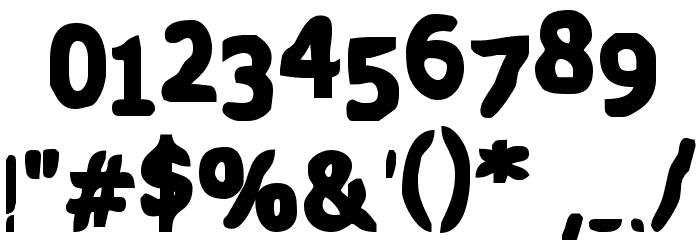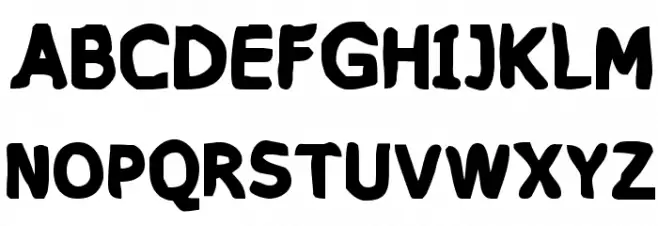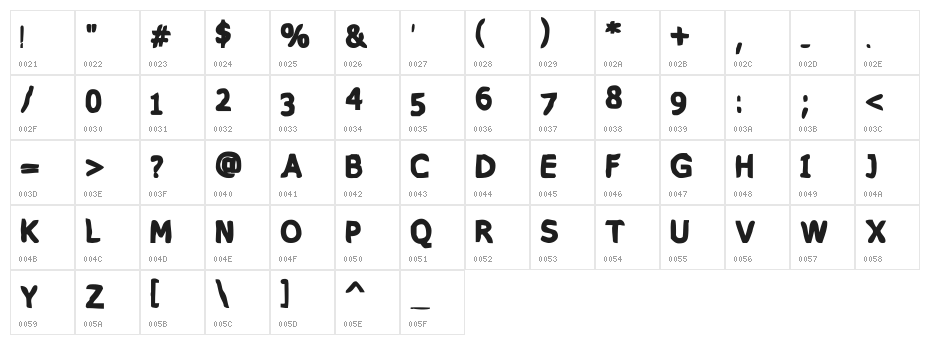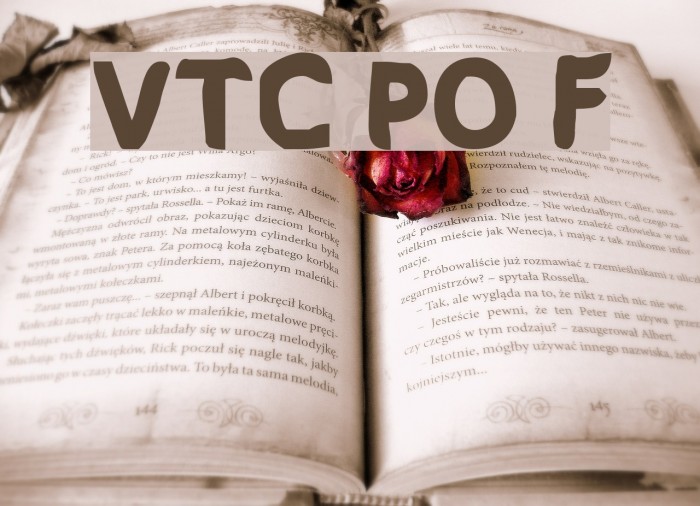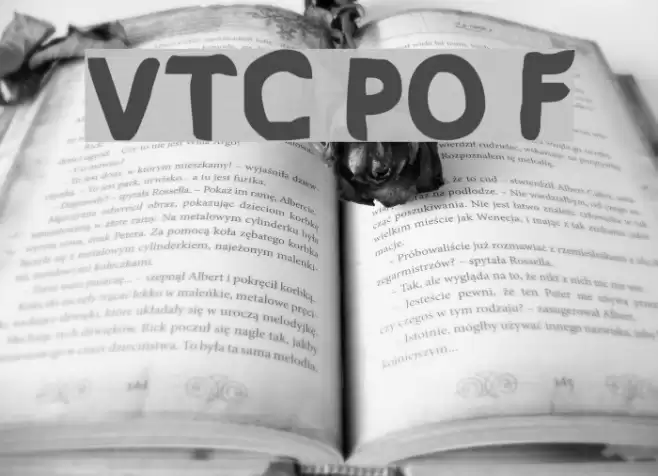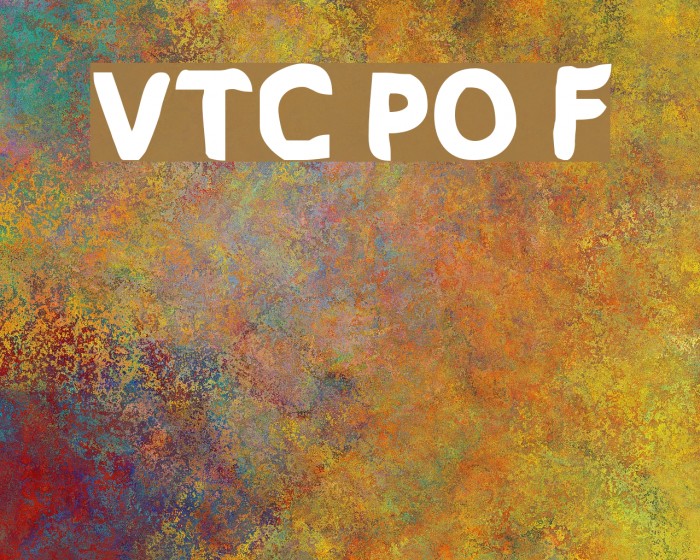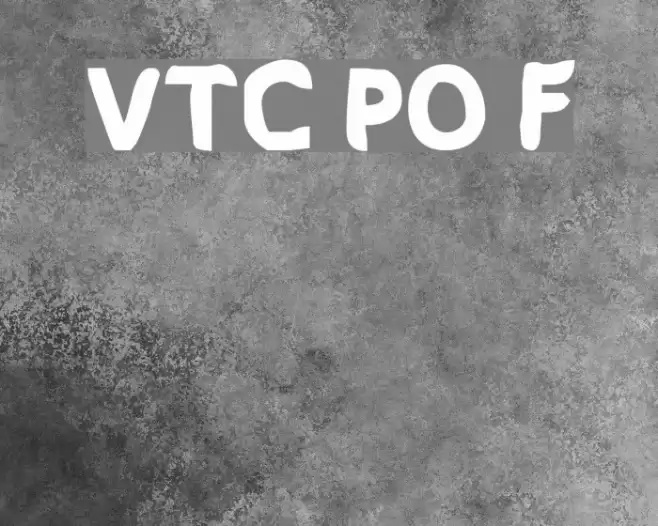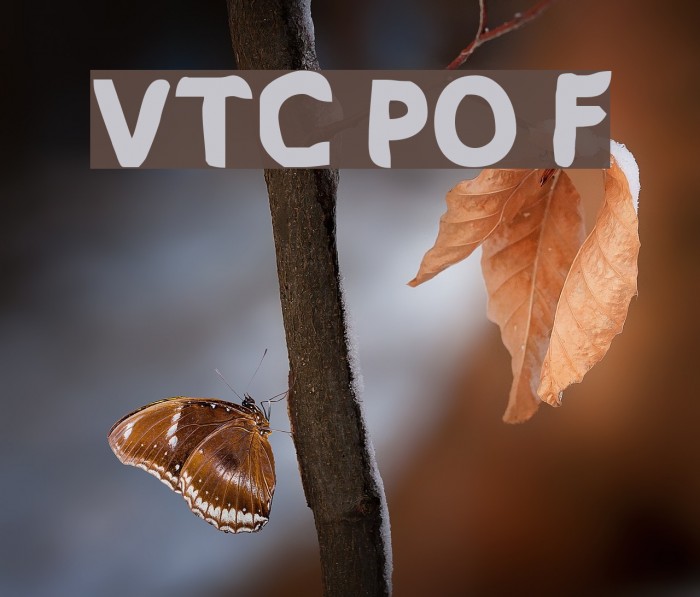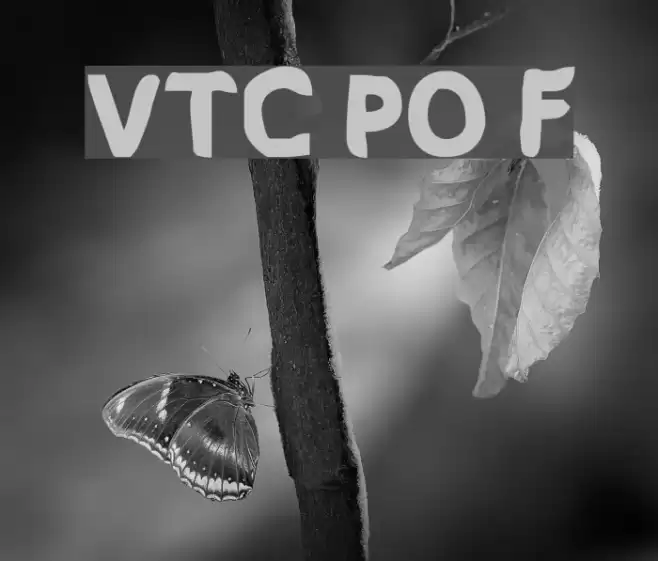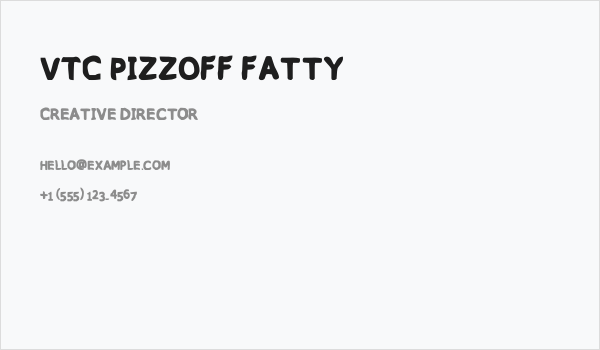
VTC PizzOff Fatty Font
VTC PizzOff Fatty Description
This bold and playful font features thick, rounded strokes that give it a chunky and friendly appearance. The characters are slightly irregular, adding a whimsical and informal touch. The uppercase and lowercase letters maintain a consistent style, with a strong presence that makes them stand out. The numbers and special characters are equally bold, ensuring readability and visual impact. This font's unique style is perfect for projects that require a fun and engaging look.
| Proposed Projects | Ideal for children's books, playful branding, posters, and social media graphics. |